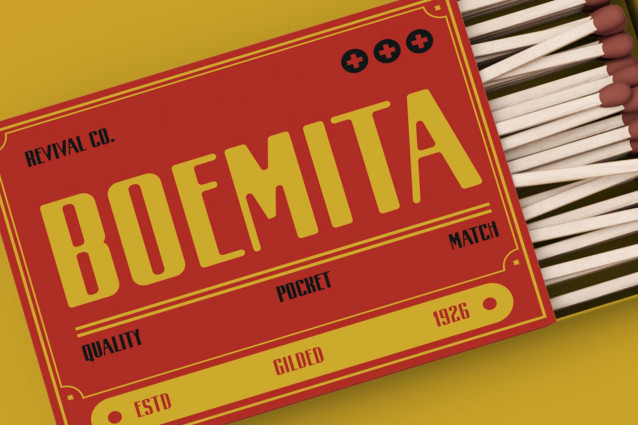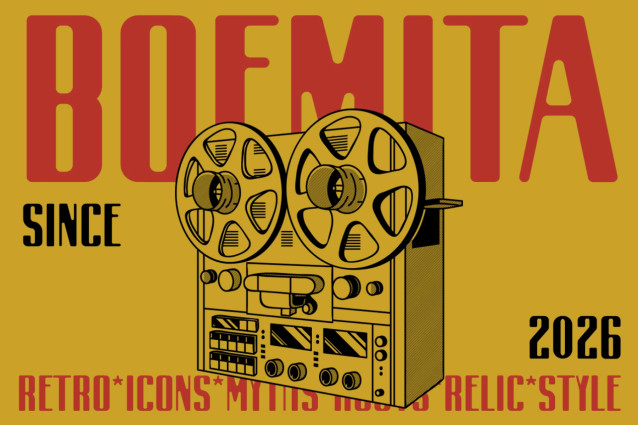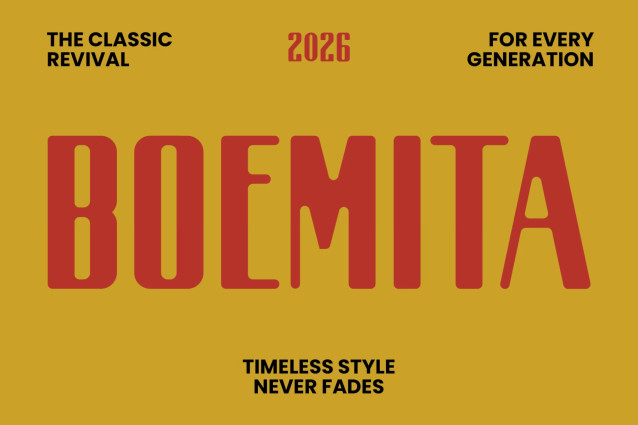
Vintage Font BOEMITA – Old-School Character. Bold Revival. Endless Style.
Vintage Font BOEMITA brings classic retro energy into modern creative work. Inspired by vintage posters, old-school labels, and nostalgic print design, it features tall condensed letterforms with strong vertical strokes and a confident display presence. Moreover, its bold structure creates excellent contrast in headlines and short statements. As a result, every design feels nostalgic, expressive, and instantly recognizable.